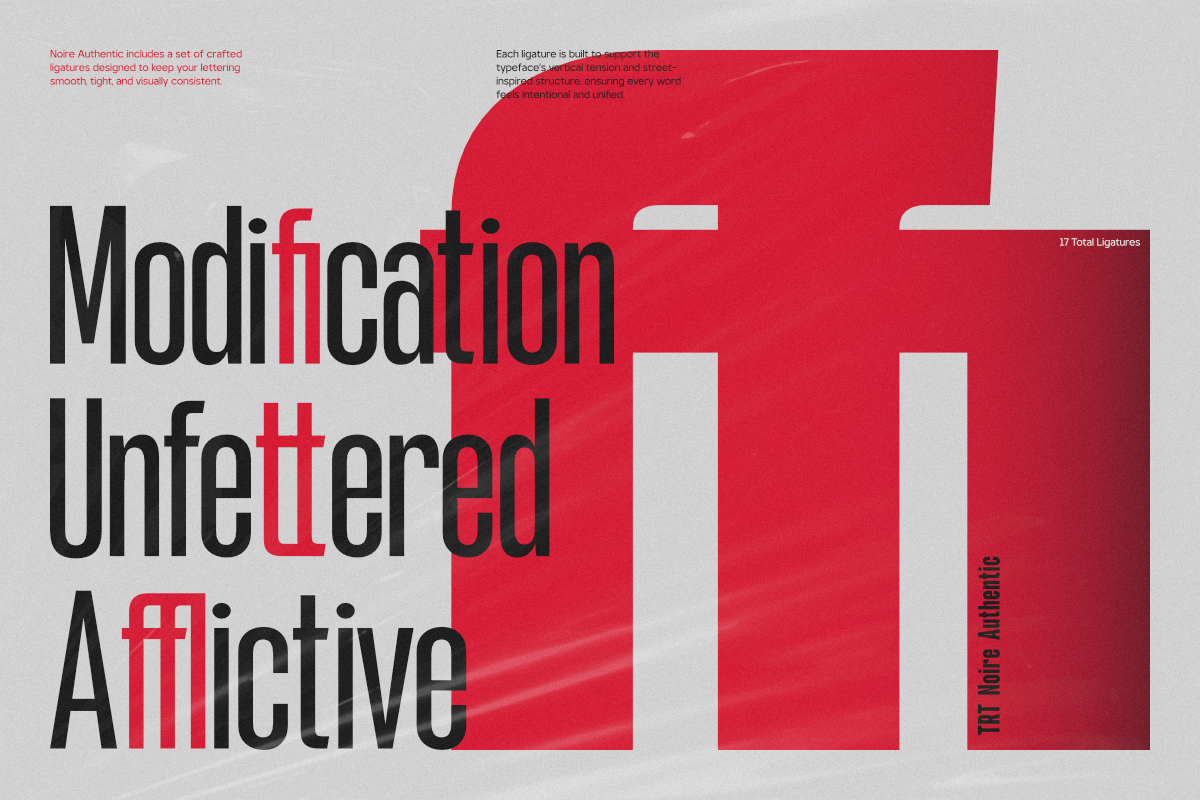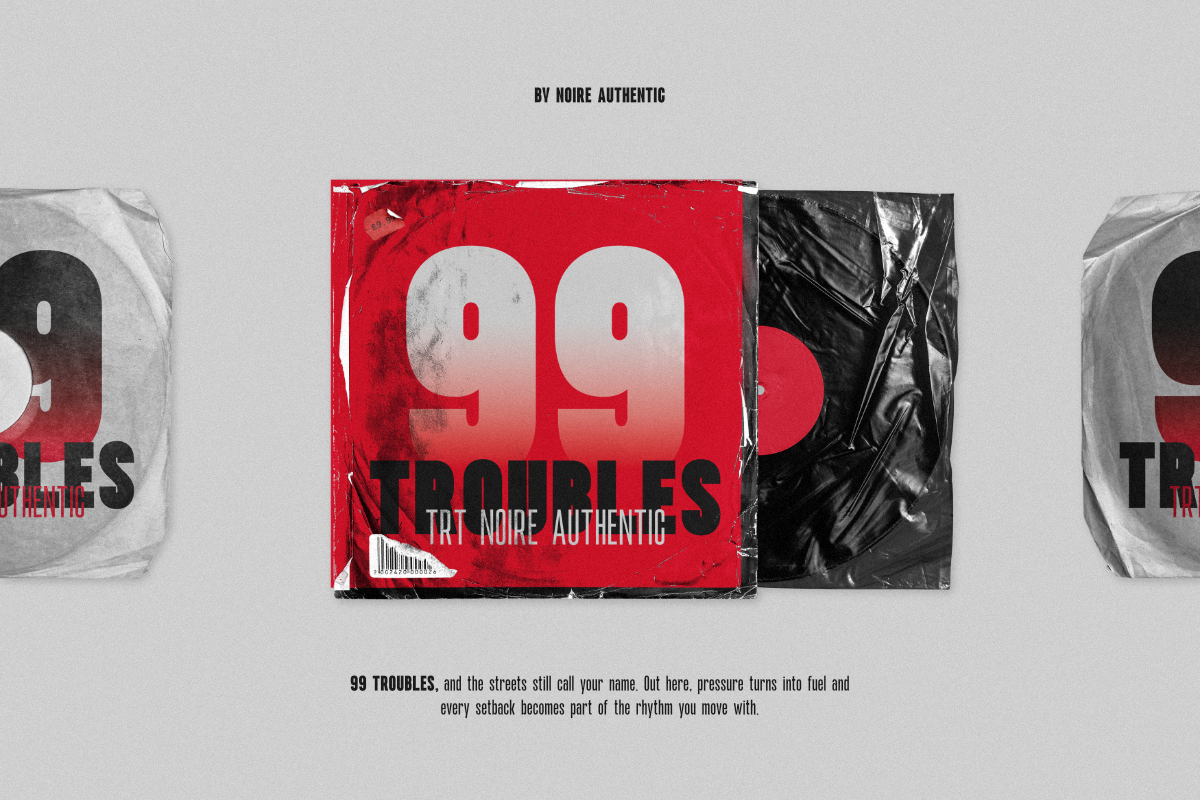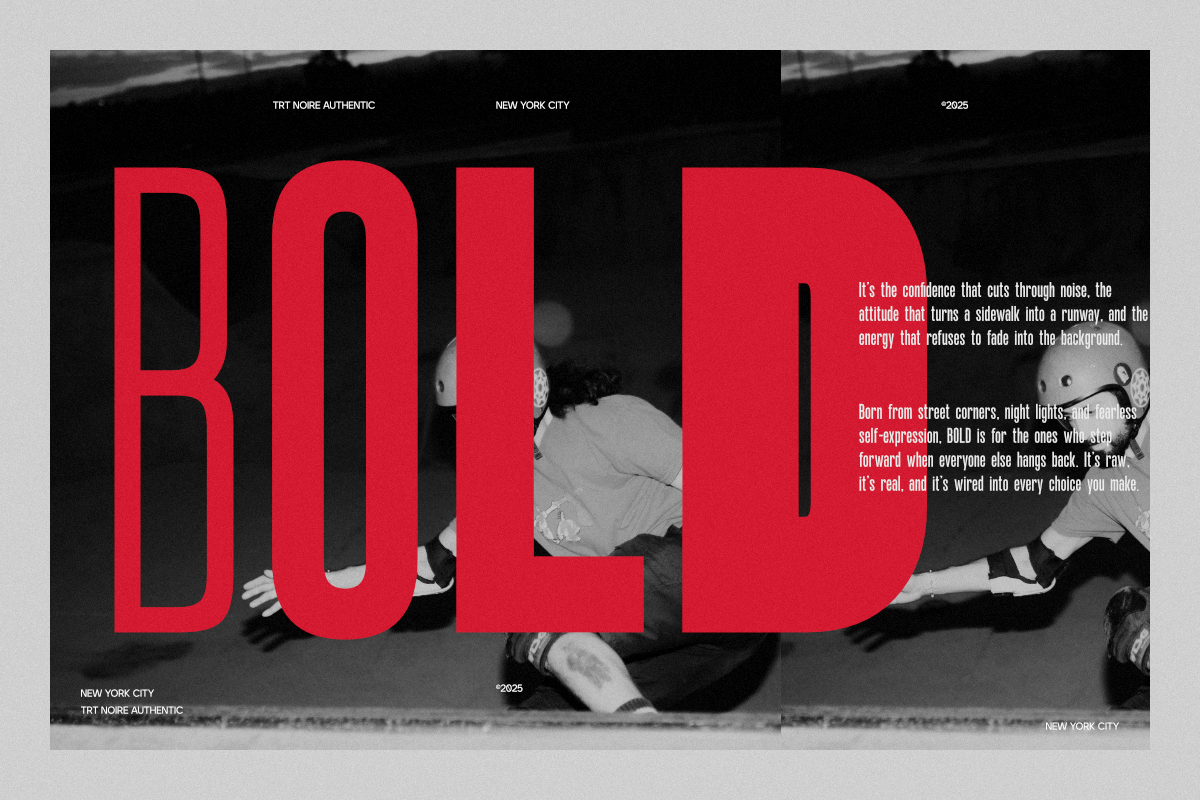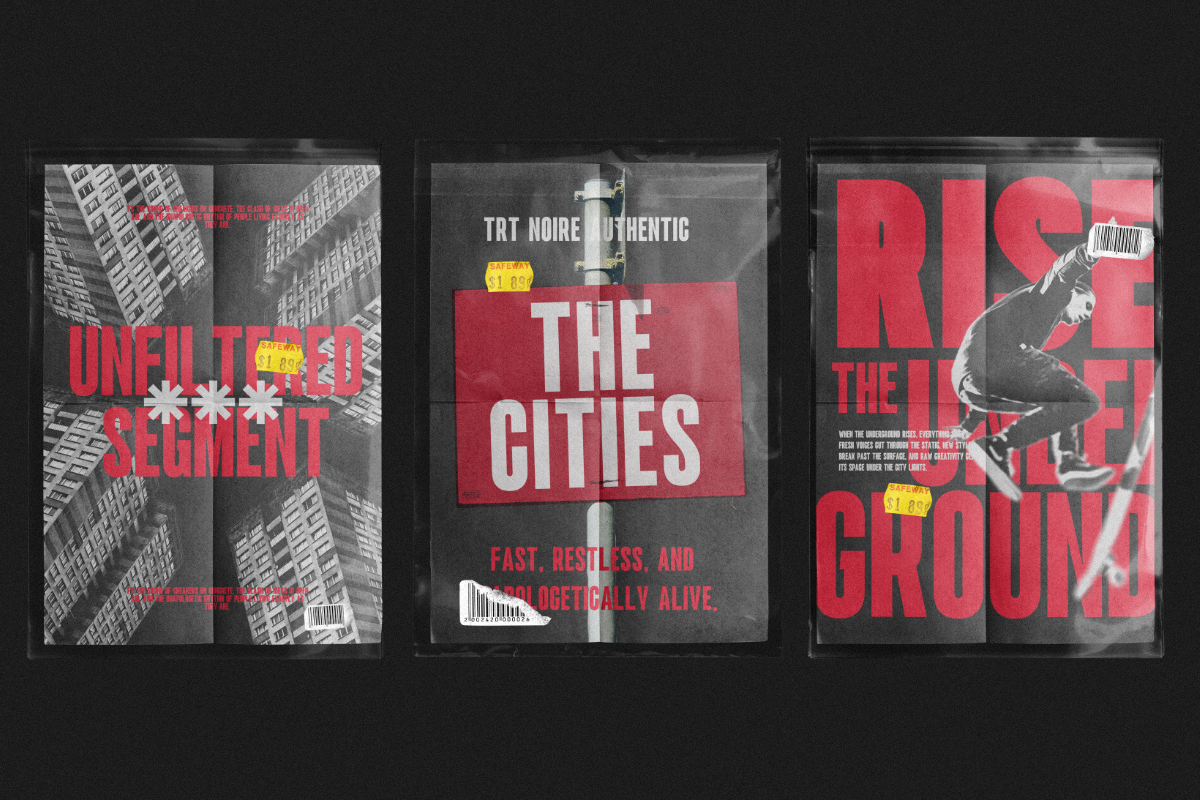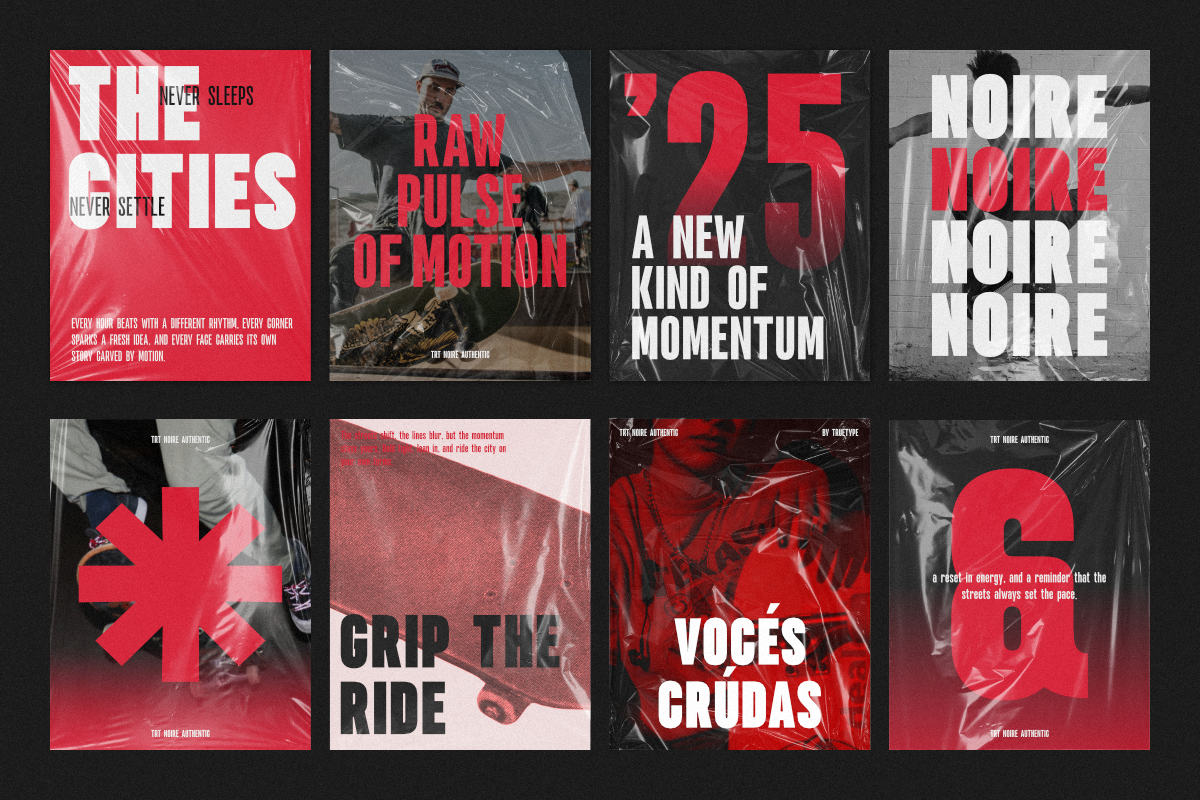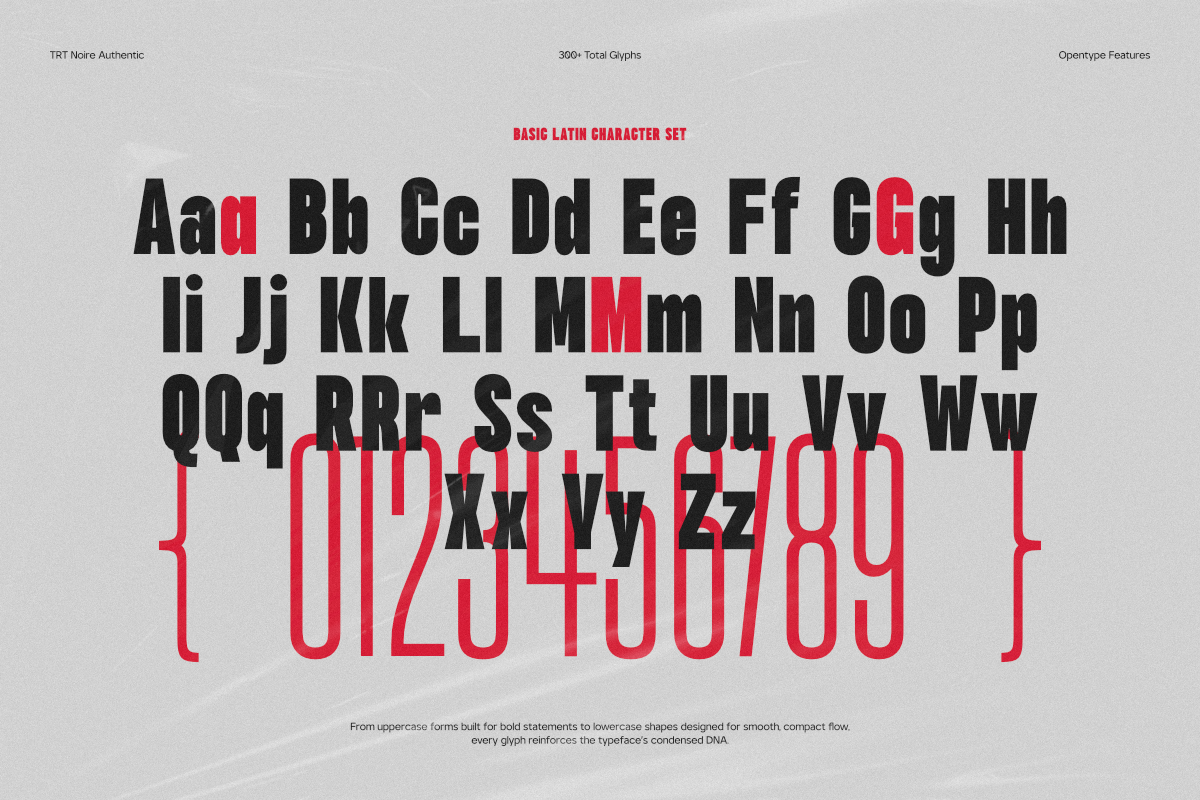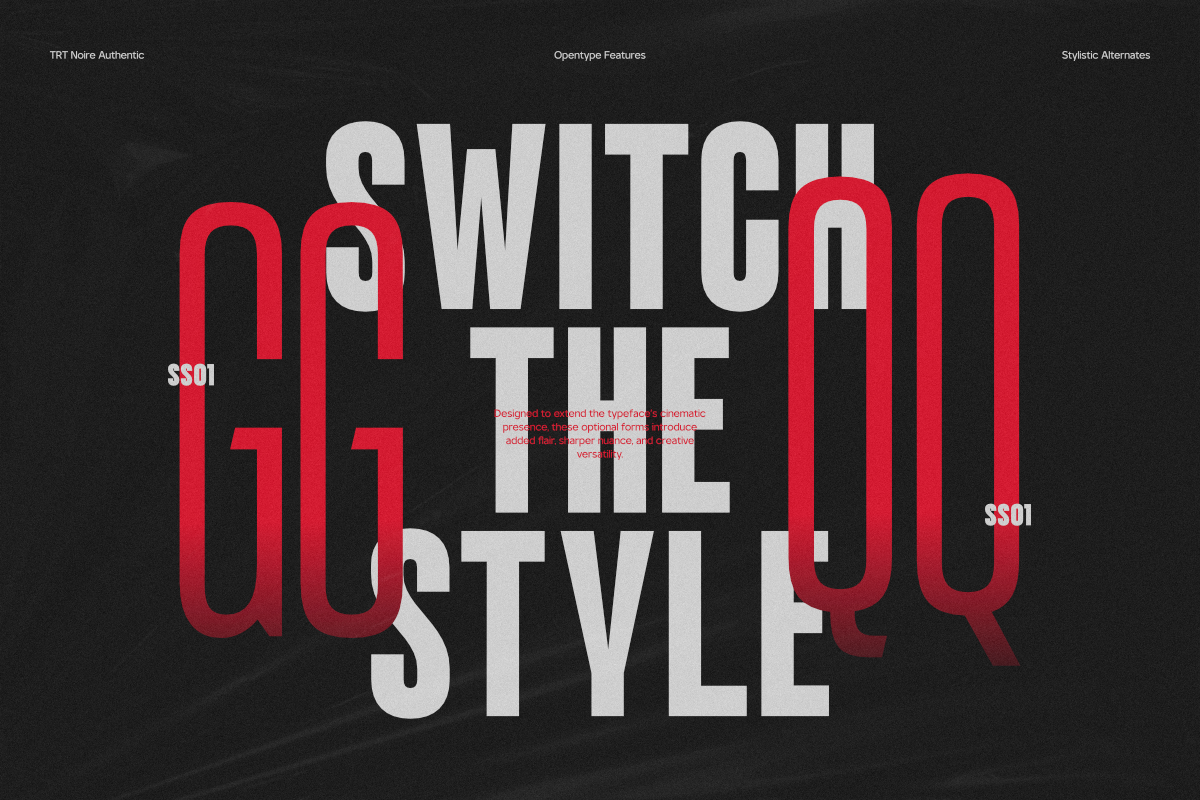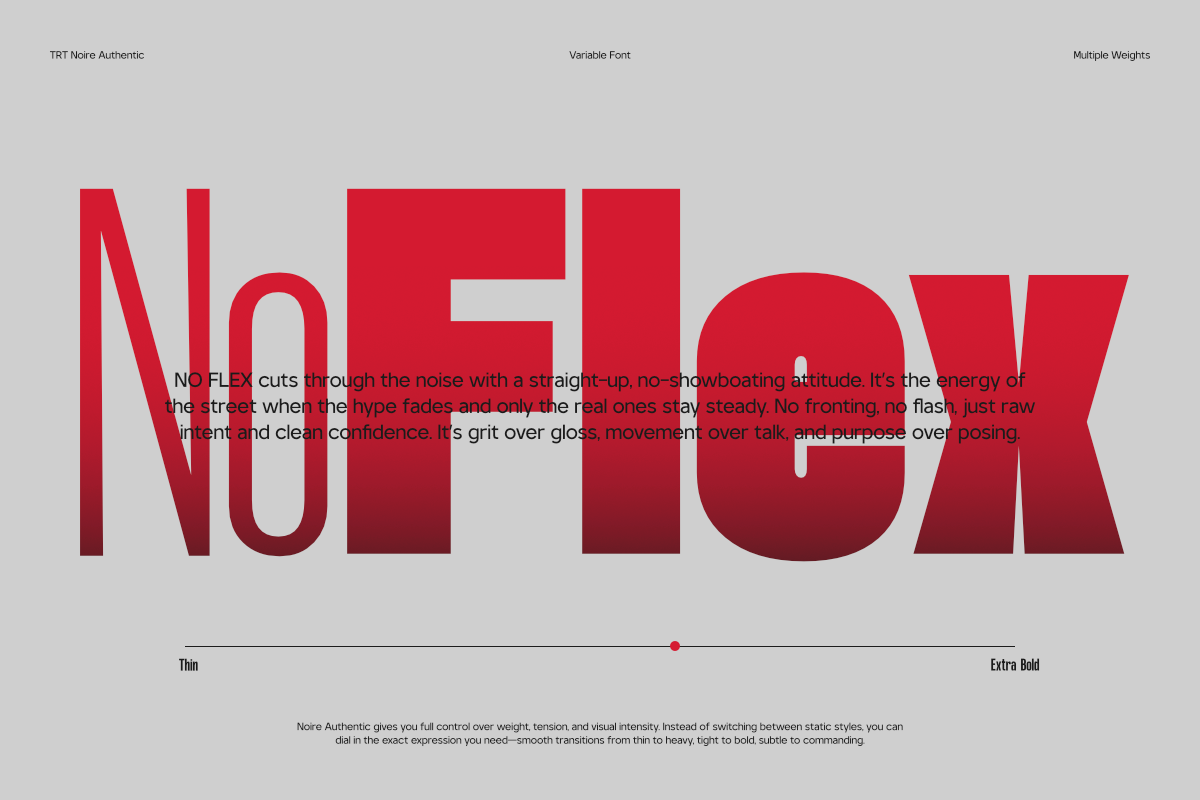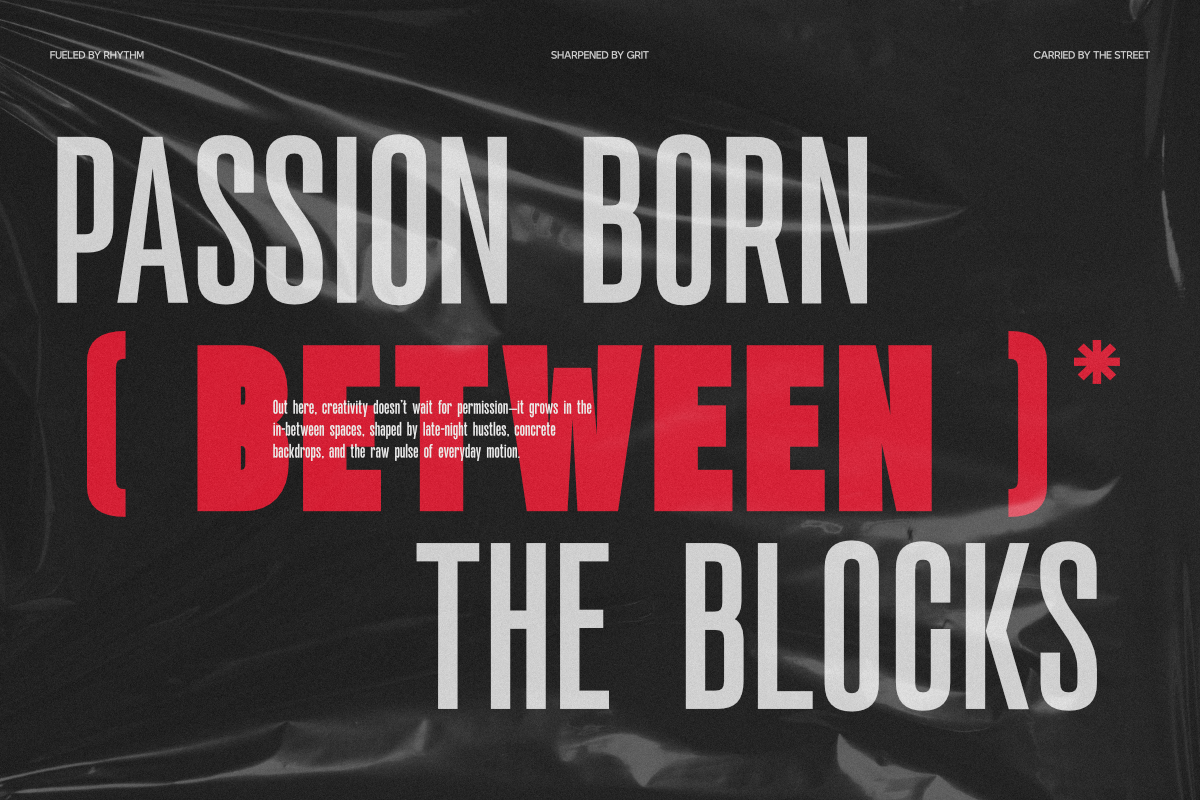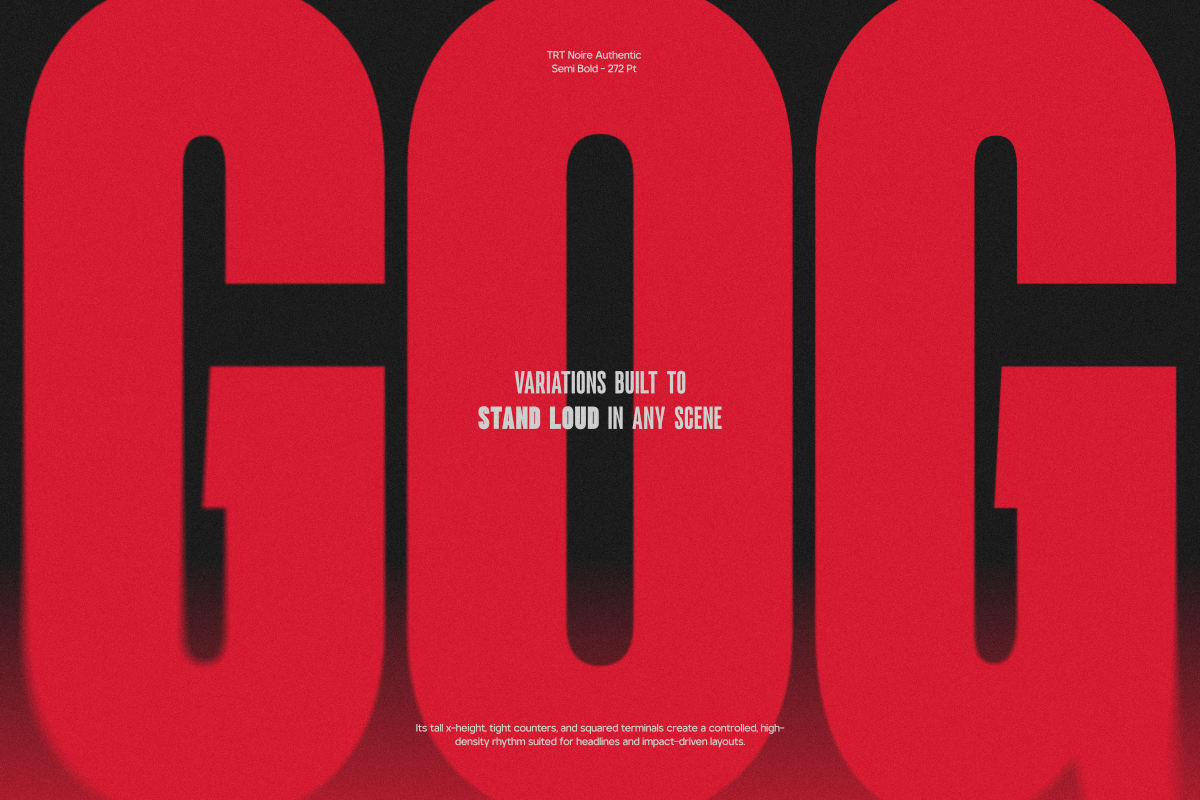
TRT NOIRE Authentic Condensed
TRT NOIRE AUTHENTIC is a condensed sans serif built to amplify the bold, cinematic mood of the poster: sharp, vertical, and charged with energy. Its towering letterforms slice through the gradient like light in a dark room, combining strict geometry with an atmospheric glow that feels raw and modern at the same time.
Every stroke is tightly controlled—narrow widths, deep counters, and crisp edges—so the type stays powerful and legible even when it dominates the entire frame. This creates a sense of tension and drama that fits oversized headlines, music visuals, and high‑impact brand graphics.
As a variable font with eight weights from Thin to Extra Bold, TRT NOIRE AUTHENTIC lets you move effortlessly from ghost‑like, transparent titles to dense, heavy statements in one continuous spectrum. OpenType features and multilingual support keep it versatile for global use, from album covers and tour posters to contemporary noir‑style opening sequences.